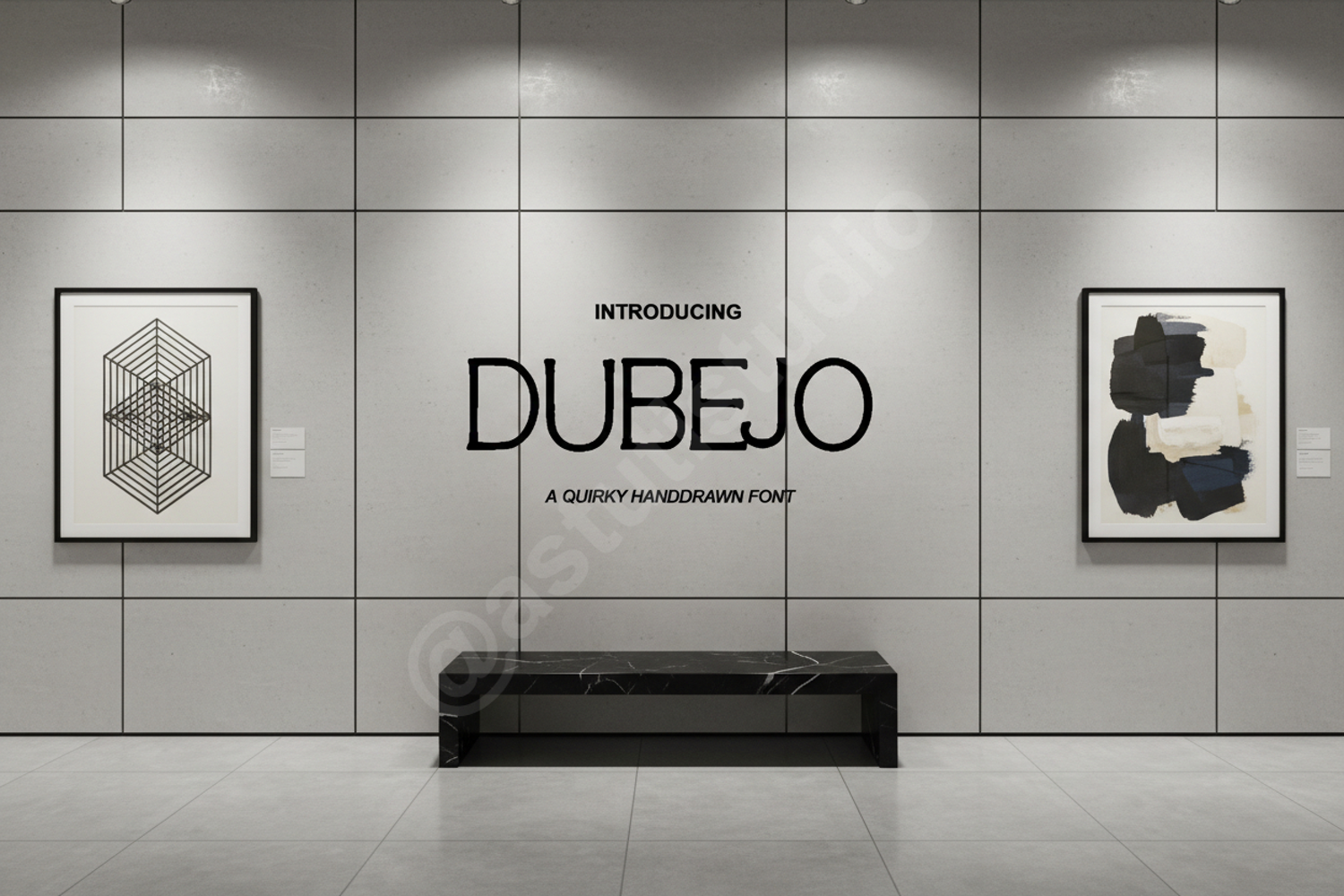
Dubejo - Sophisticated Modern Sans Serif
Dubejo
Elevate your creative projects with Dubejo, a premium sans serif font that blends modern minimalism with professional elegance. Designed with precision, Dubejo features clean lines and a balanced weight that ensures maximum readability across both print and digital platforms. Whether you are building a high-end brand or designing a sleek editorial layout, this font provides the versatility and sophistication your work deserves.
- Branding and Visual Identity: Perfect for logos, business cards, and corporate stationery.
- Wedding and Events: Ideal for elegant invitations, menus, and place cards.
- Digital Media: Optimized for website headers, blog titles, and social media content.
- Editorial Design: A great choice for magazine layouts, book covers, and brochures.
- Marketing Materials: Enhance your posters, flyers, and advertisements with a clean, professional look.